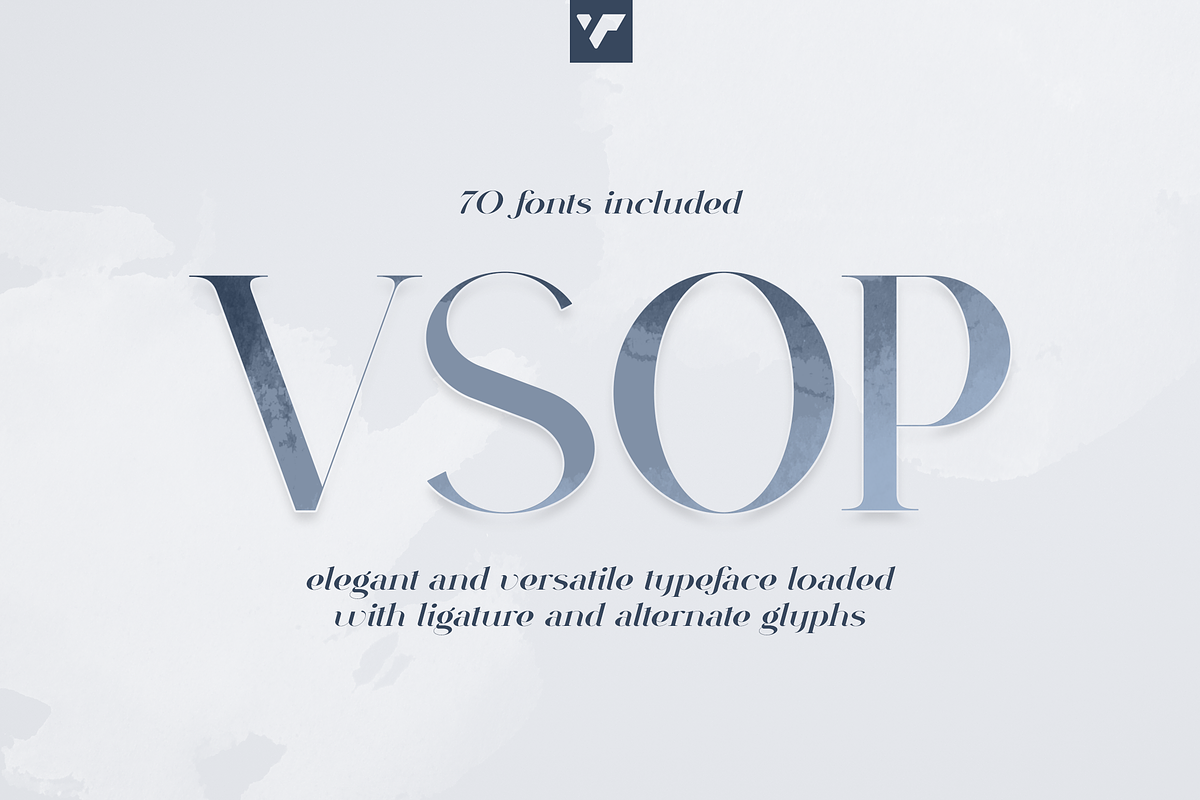
VSOP – Elegant Serif, 70 Fonts Free Download is a luxurious and comprehensive type family designed to offer maximum versatility with timeless style. With 70 individual fonts, including a wide range of weights, italics, and stylistic alternates, VSOP is ideal for premium branding, editorial layouts, packaging, invitations, logo design, and high-end advertising.
Its classic serif foundation is paired with modern elegance—featuring refined strokes, balanced contrast, and beautiful curves. From minimalist headlines to elaborate typographic compositions, VSOP adapts effortlessly to any project that demands both sophistication and variety.